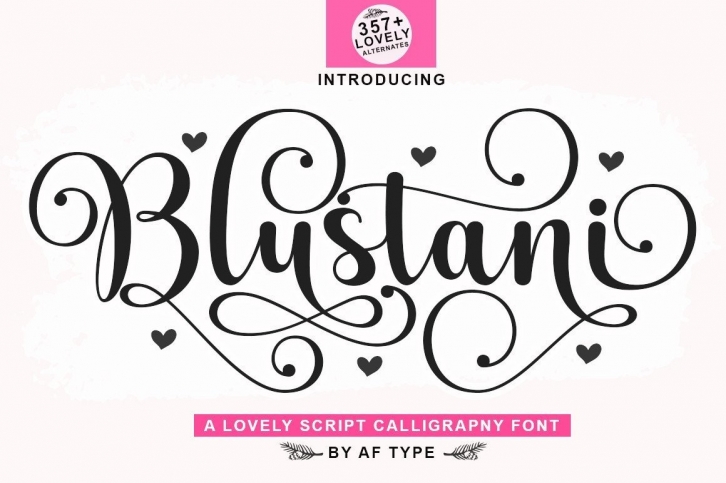
Blustani is a luxury handwritten font, described by an elegant touch, perfect for your favorite projects. Fall in love with its incredibly distinct and timeless style and use it to create spectacular designs!